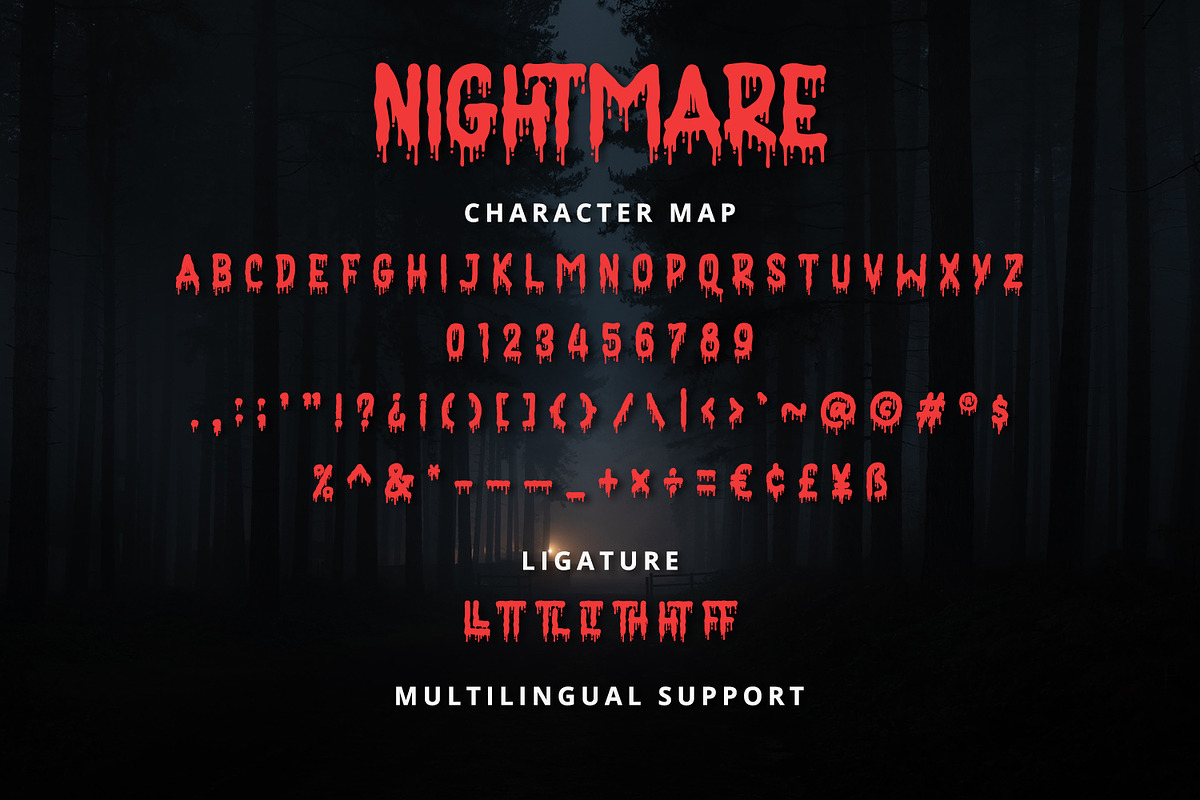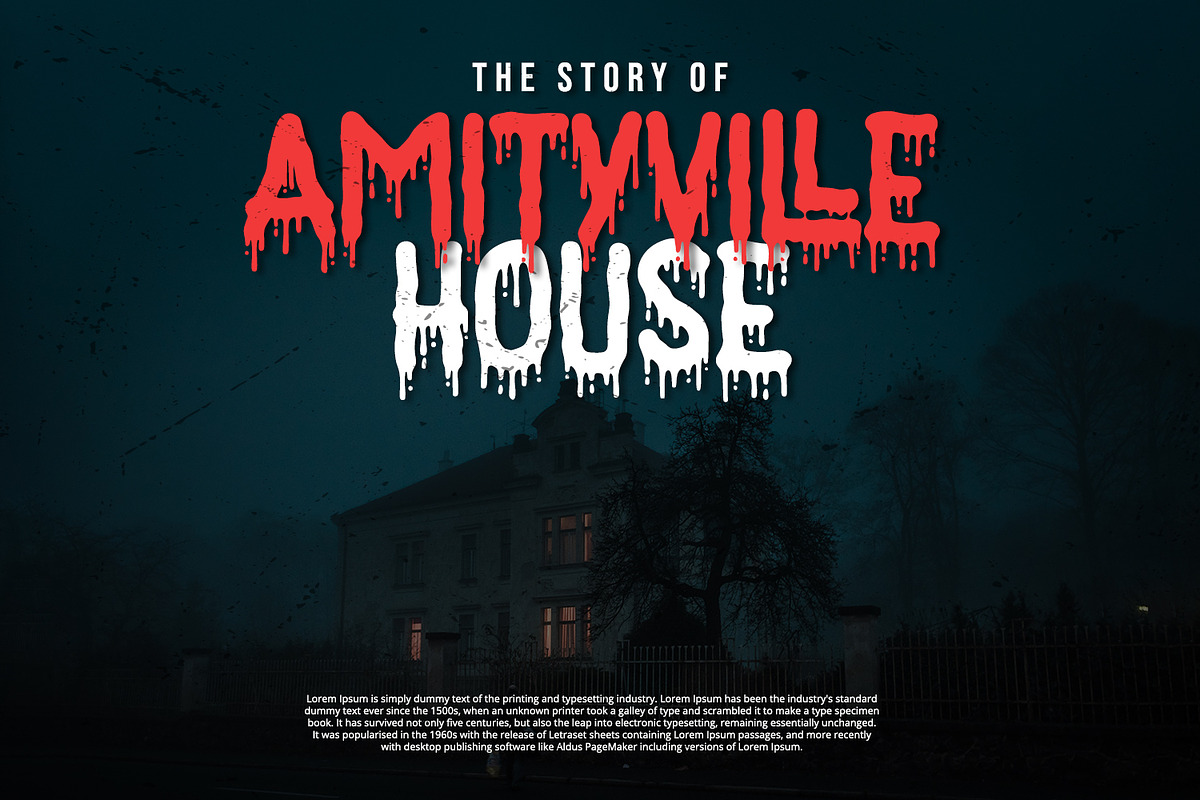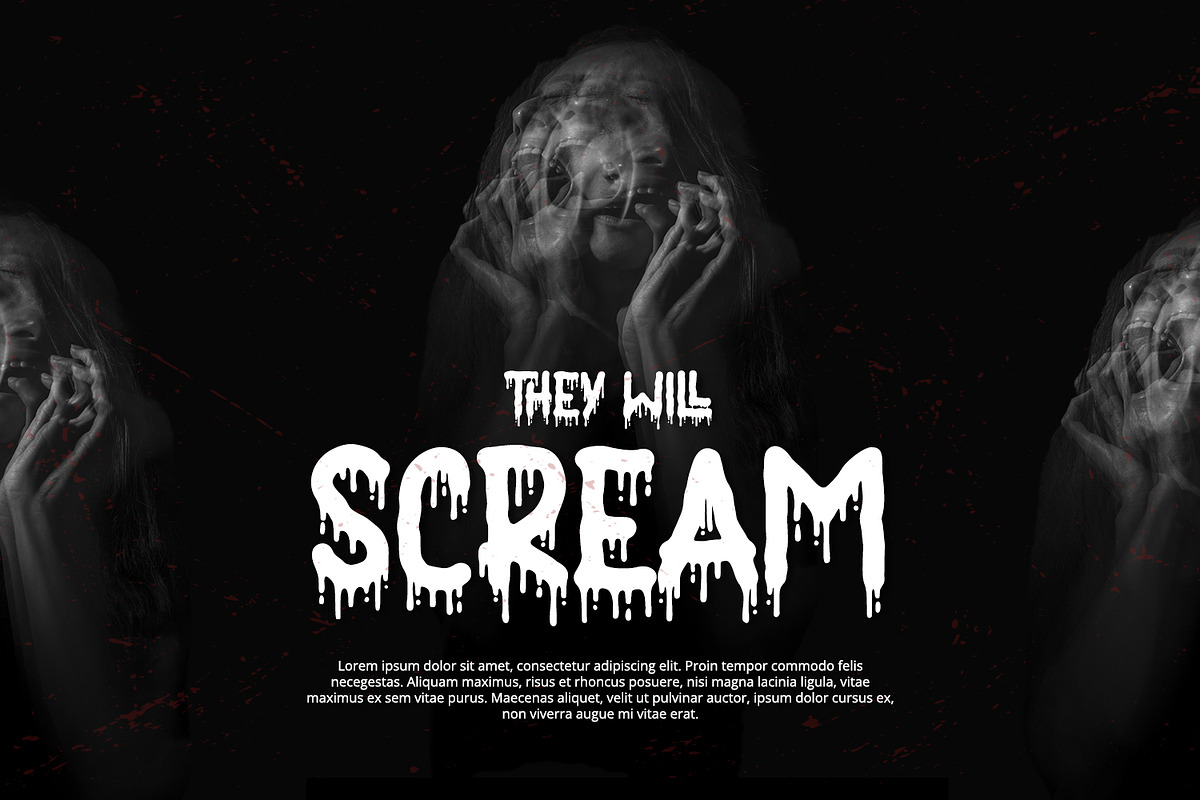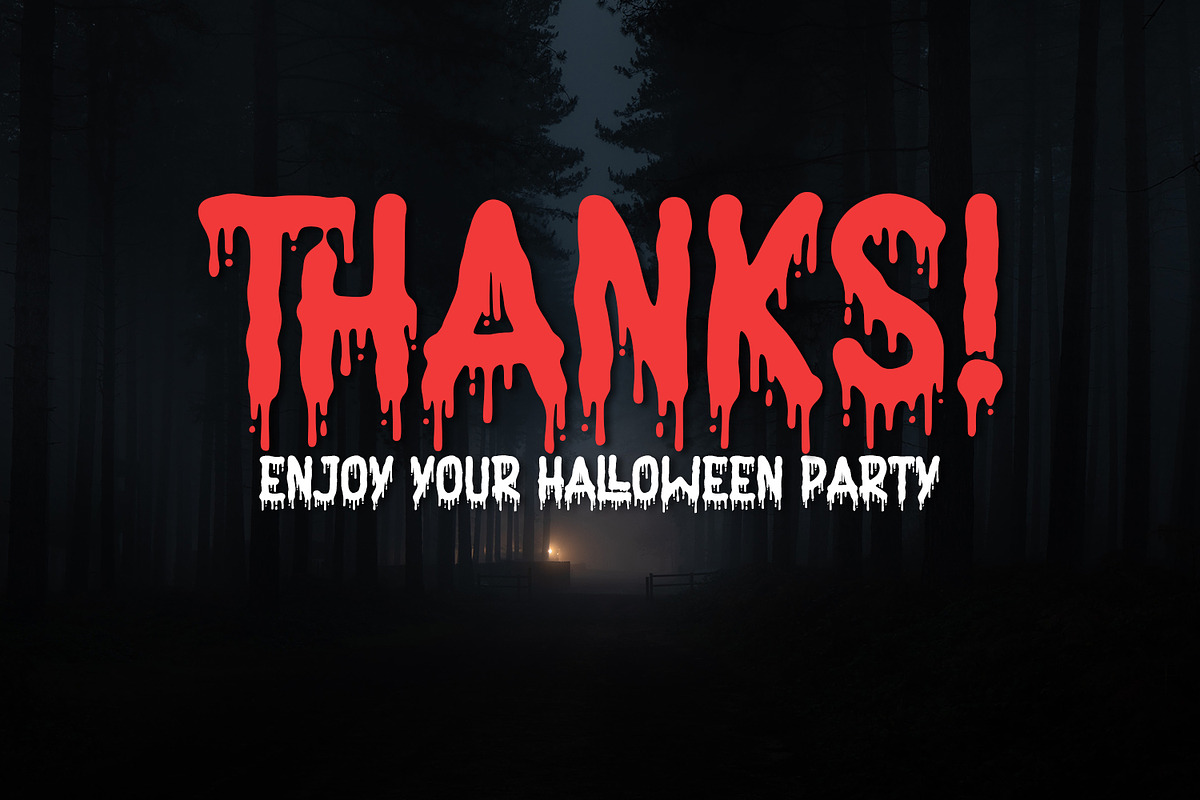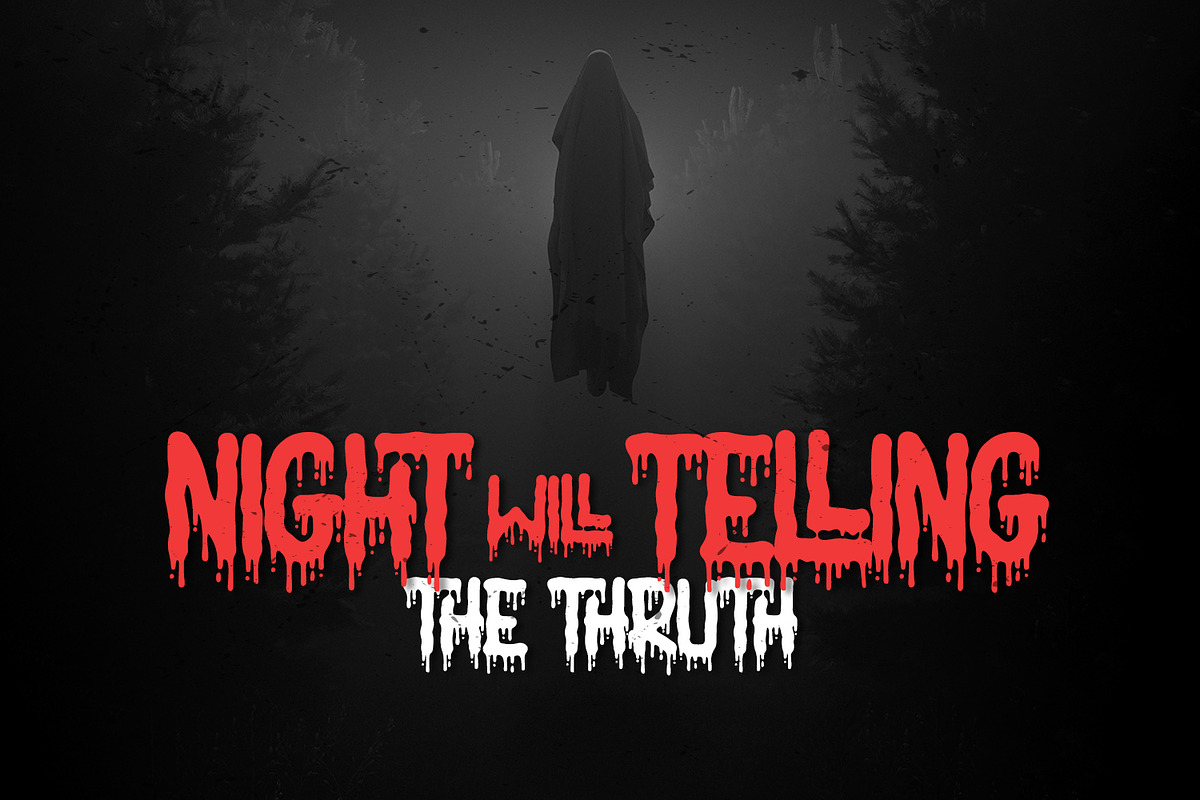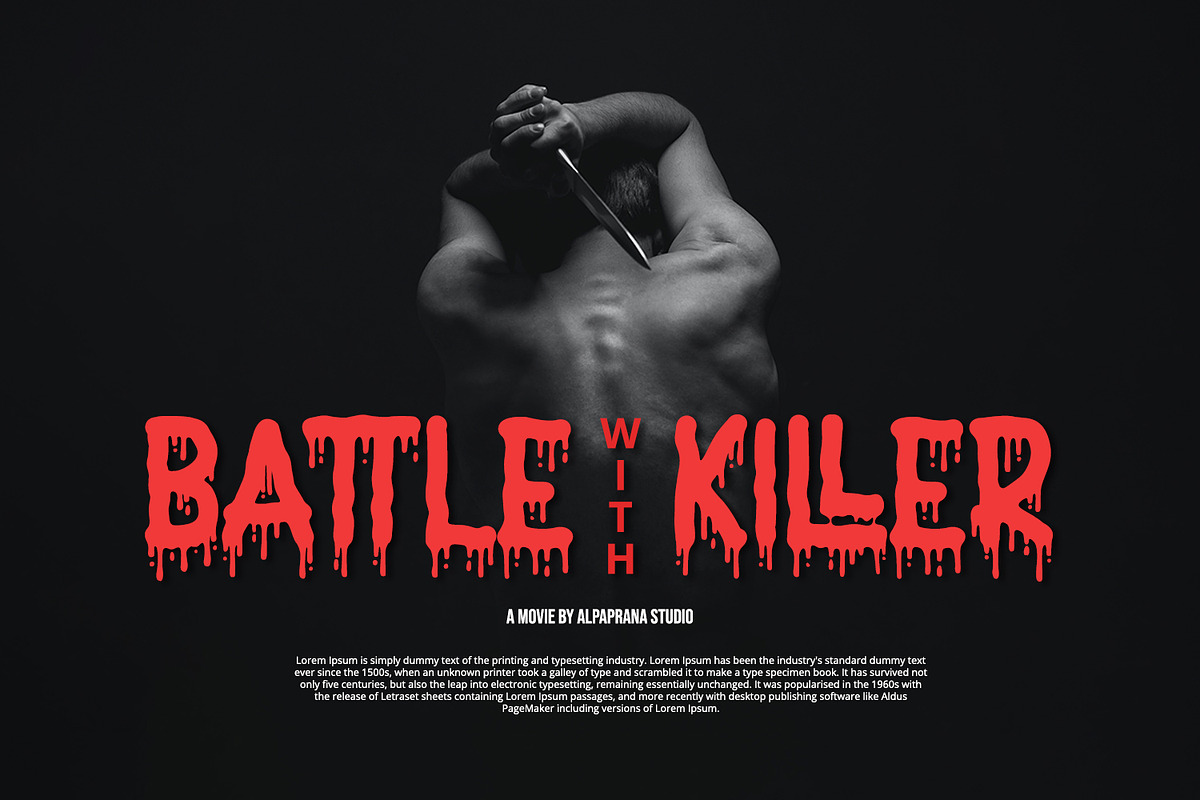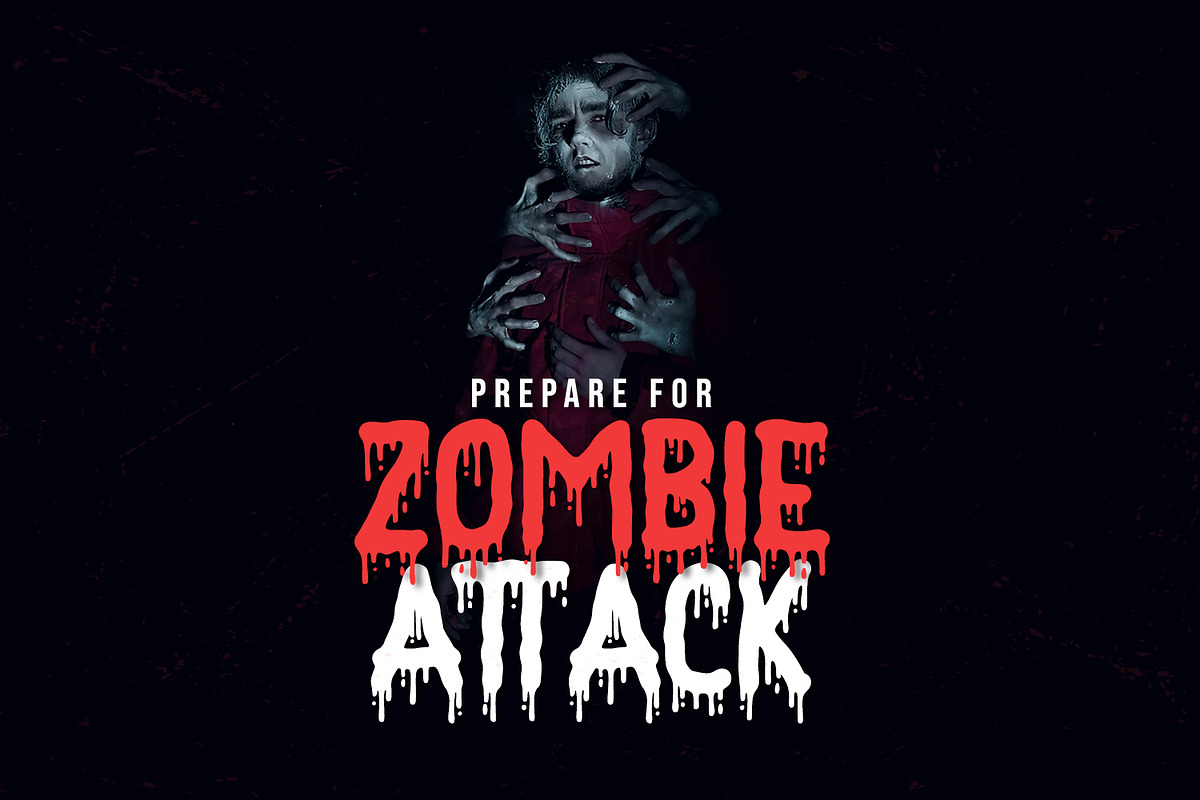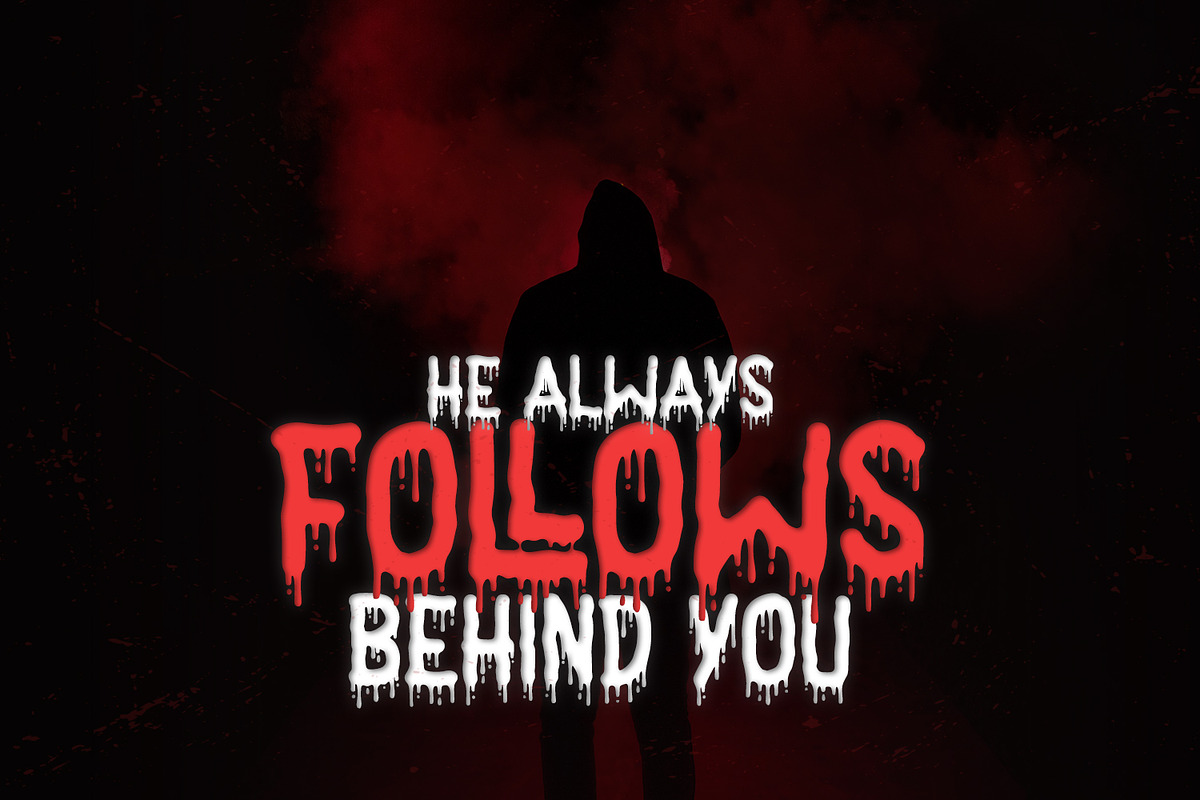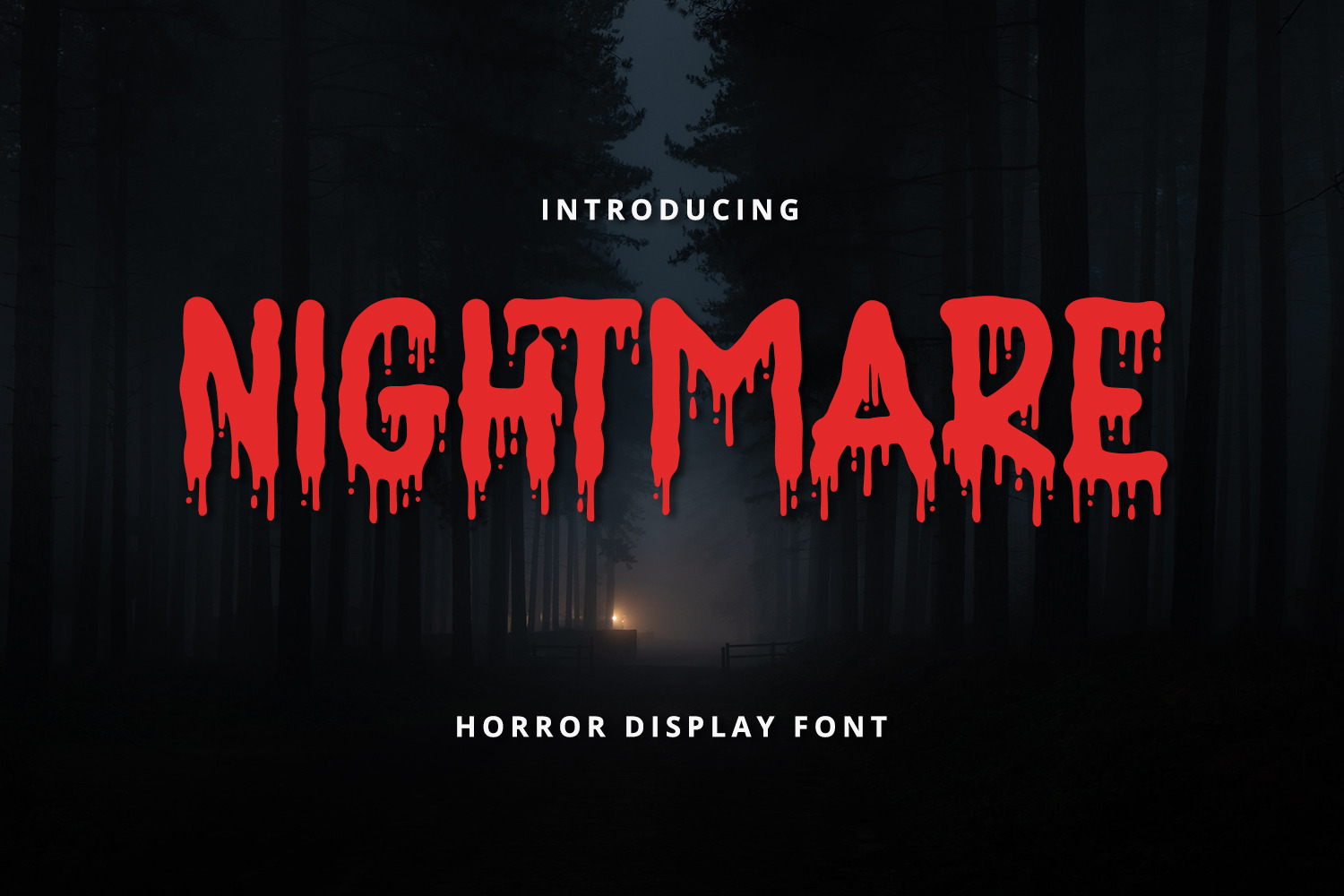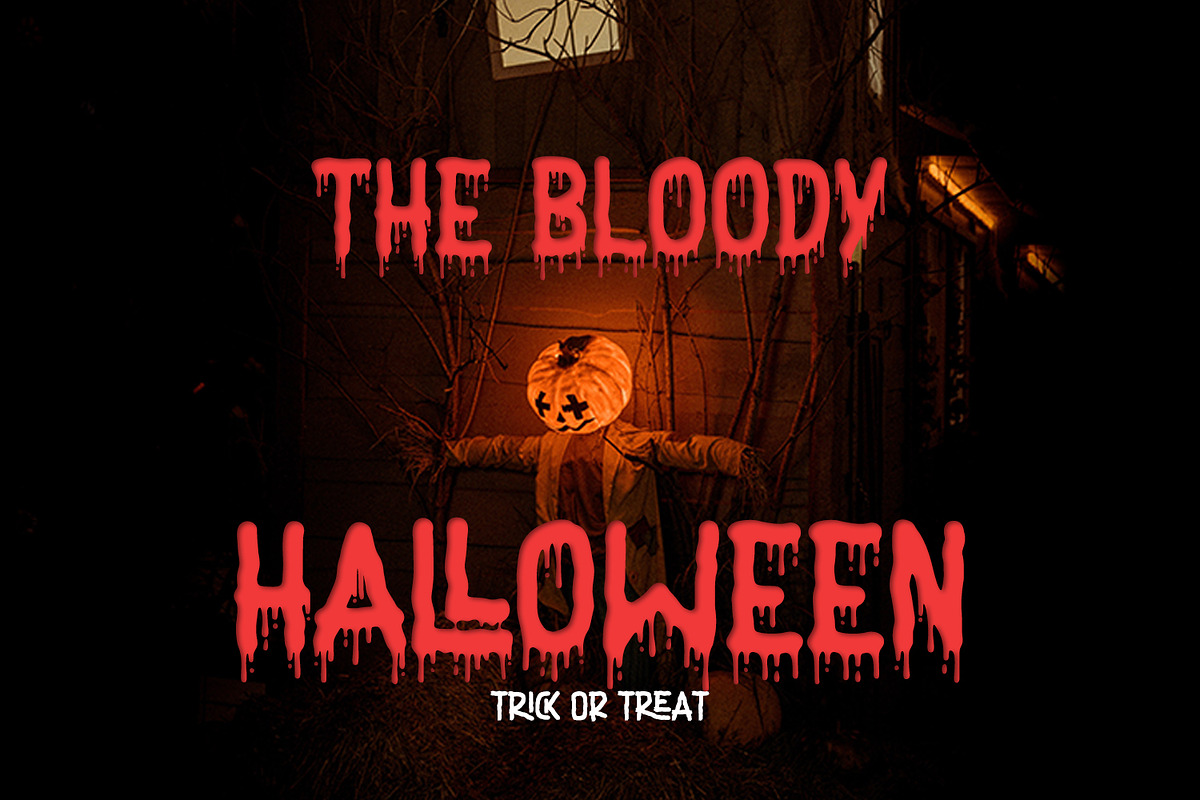
Nightmare - Horror Display Font
Nightmare is a stunning horror display font with natural and scary feels. It will be perfectly used for Branding, Logo Design, Lettering, Logotype, Clothing, Poster, magazine, packaging, posters, shopping bags, t-shirts, book covers, photography, special events and other design project.